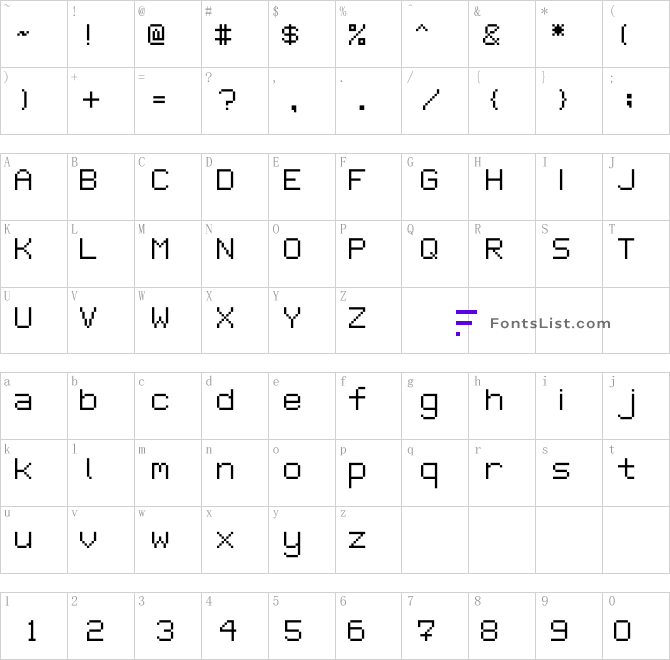
- Font Name:Agamefont
Agamefont.ttf is a very beautiful artistic font, Agamefont.ttf is widely used in the design and printing of various books and pictures,Agamefont.ttf has a strong visual impact,Agamefont.ttf is a commonly used font in newspapers, magazines and books, and is used in posters, e-commerce Poster design, store design, logo design, font design and other fields.Agamefont.